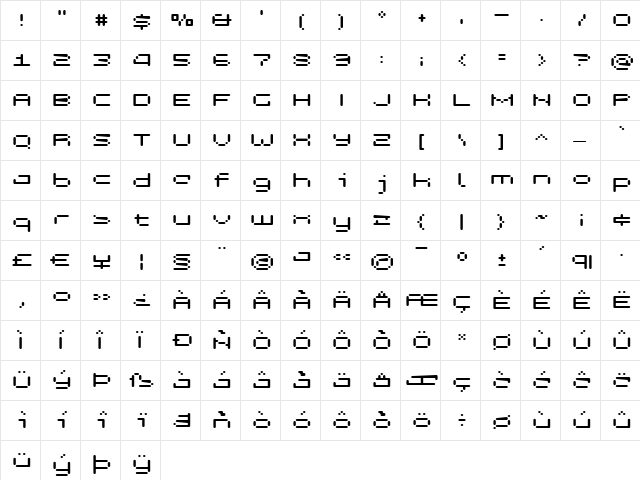
Cypher7 Regular Regular
| Designer | James Grieshaber |
Design Context for Cypher7 Regular Typeface
Cypher7 Regular is a composed and adaptable typeface that performs quietly and consistently across a wide range of design contexts.